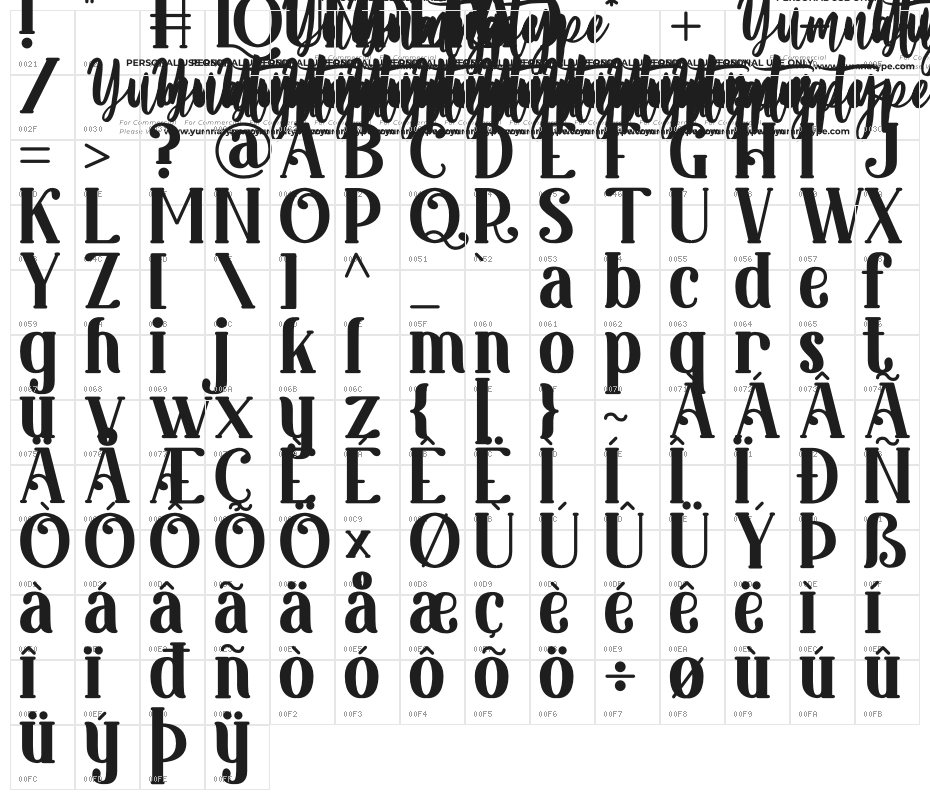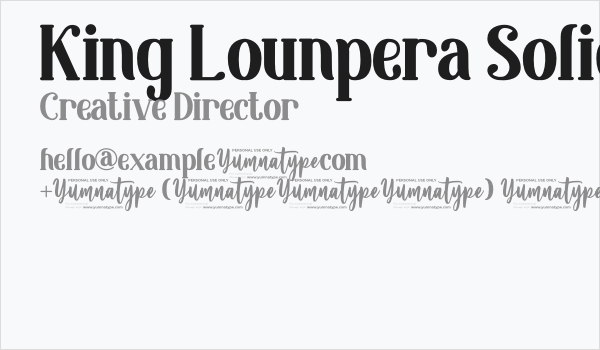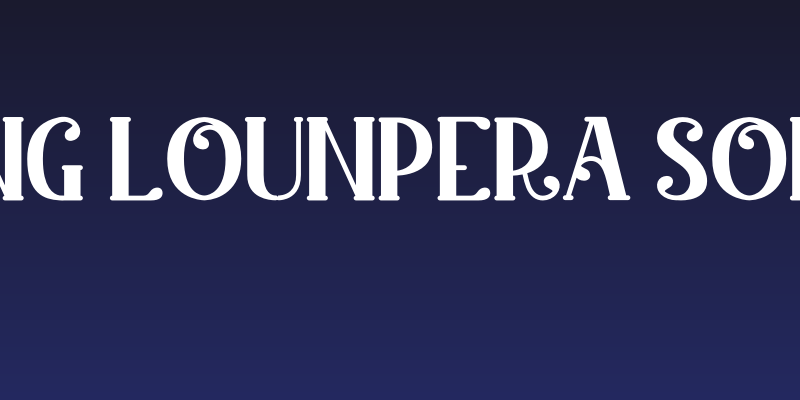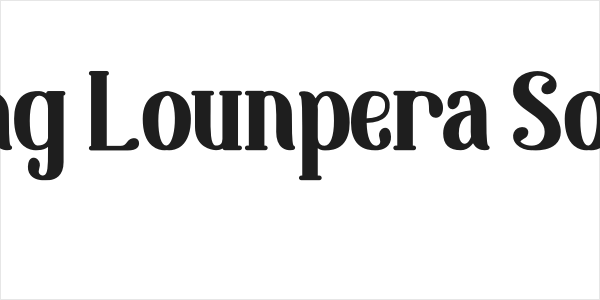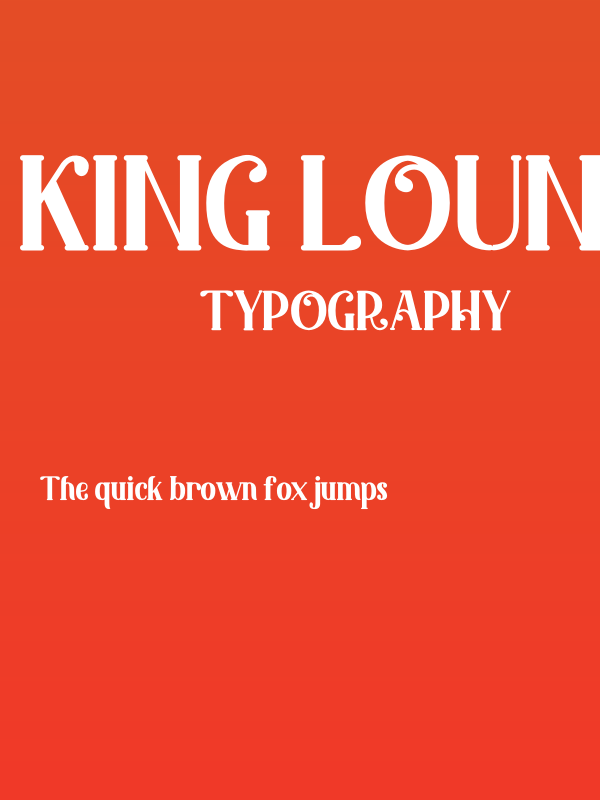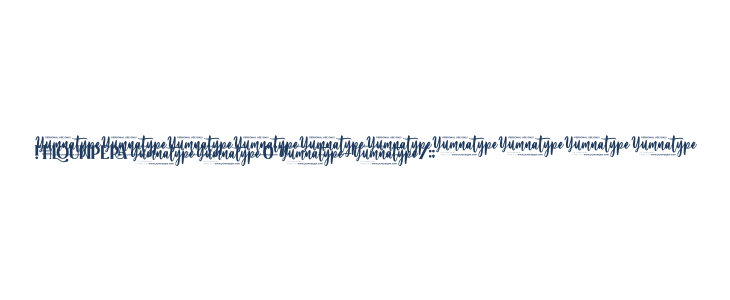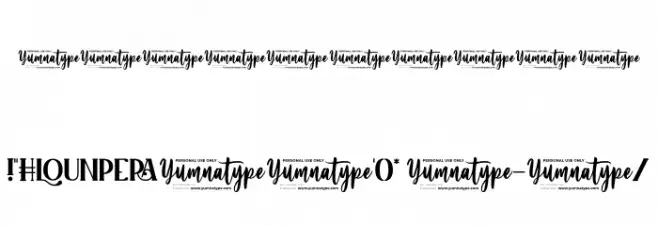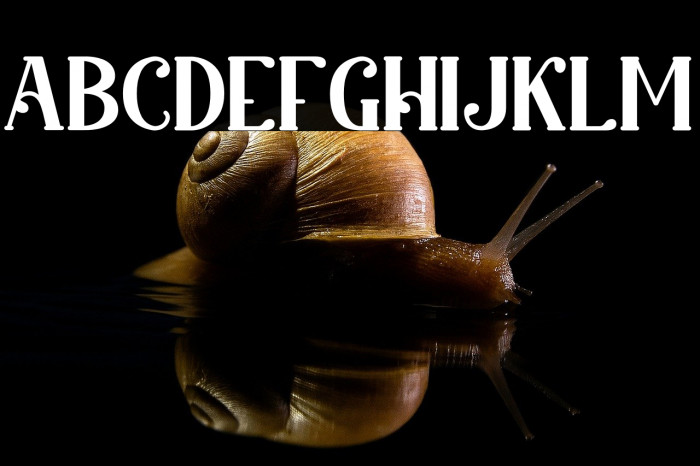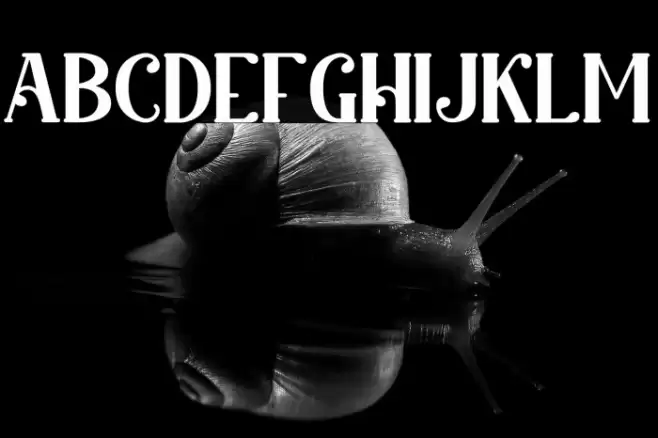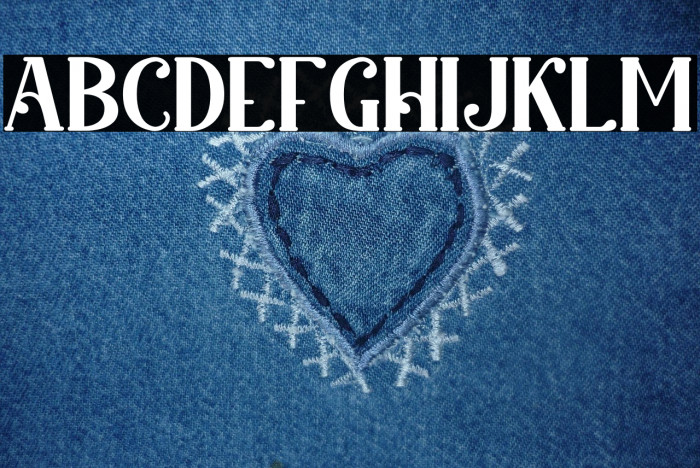
King Lounpera Solid Font
This font features a bold and decorative style with unique, playful elements. The uppercase letters have a distinct flair, with some characters incorporating swirls and extended strokes, adding a whimsical touch. The lowercase letters maintain a consistent style, with rounded forms and smooth curves that enhance readability. The numbers and special characters are designed to match the overall aesthetic, ensuring a cohesive look across all text elements. This font's boldness and decorative nature make it stand out, while its clear structure ensures it remains legible.
| Proposed Projects | Ideal for branding, poster design, headlines, and any project requiring a bold, decorative touch. |